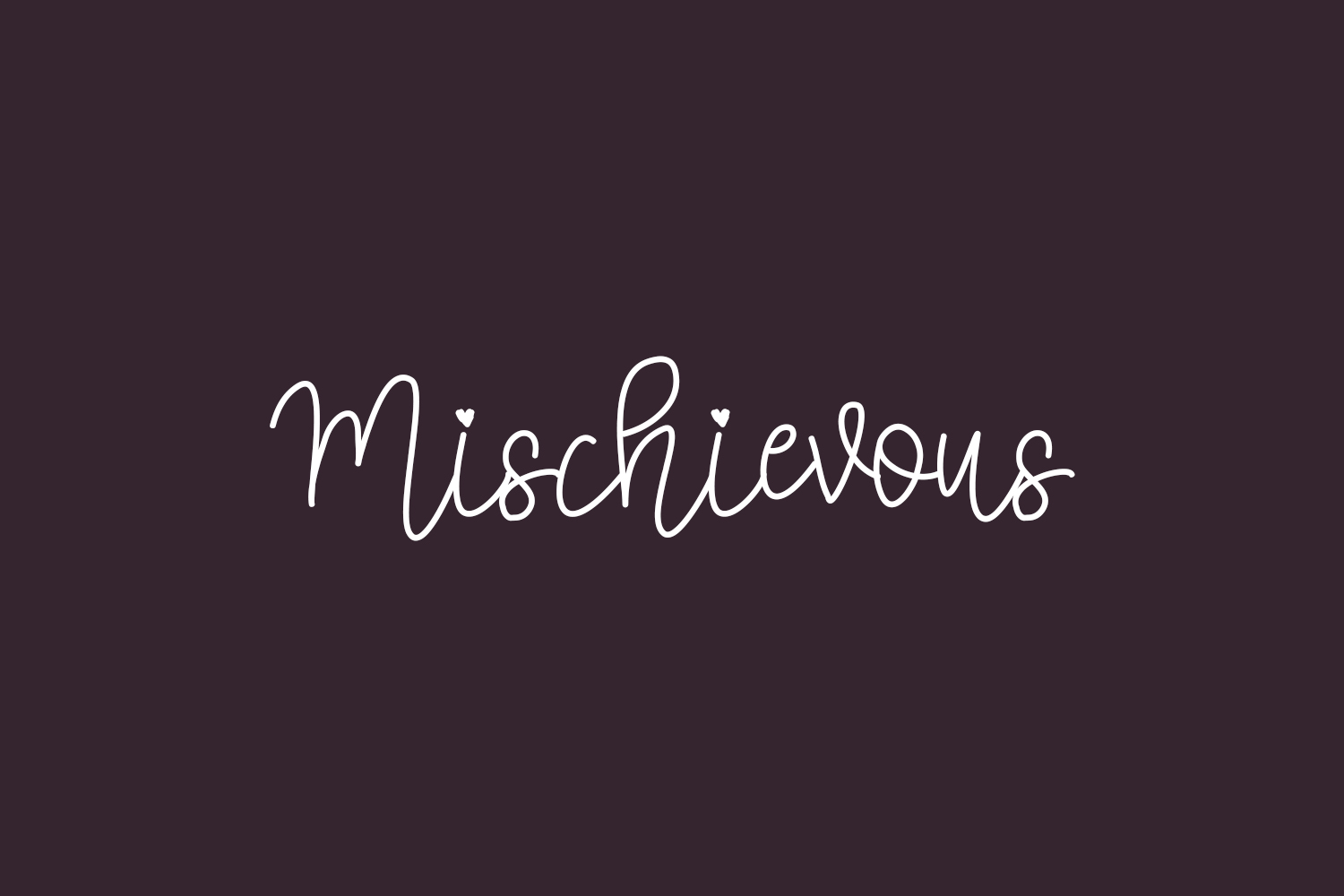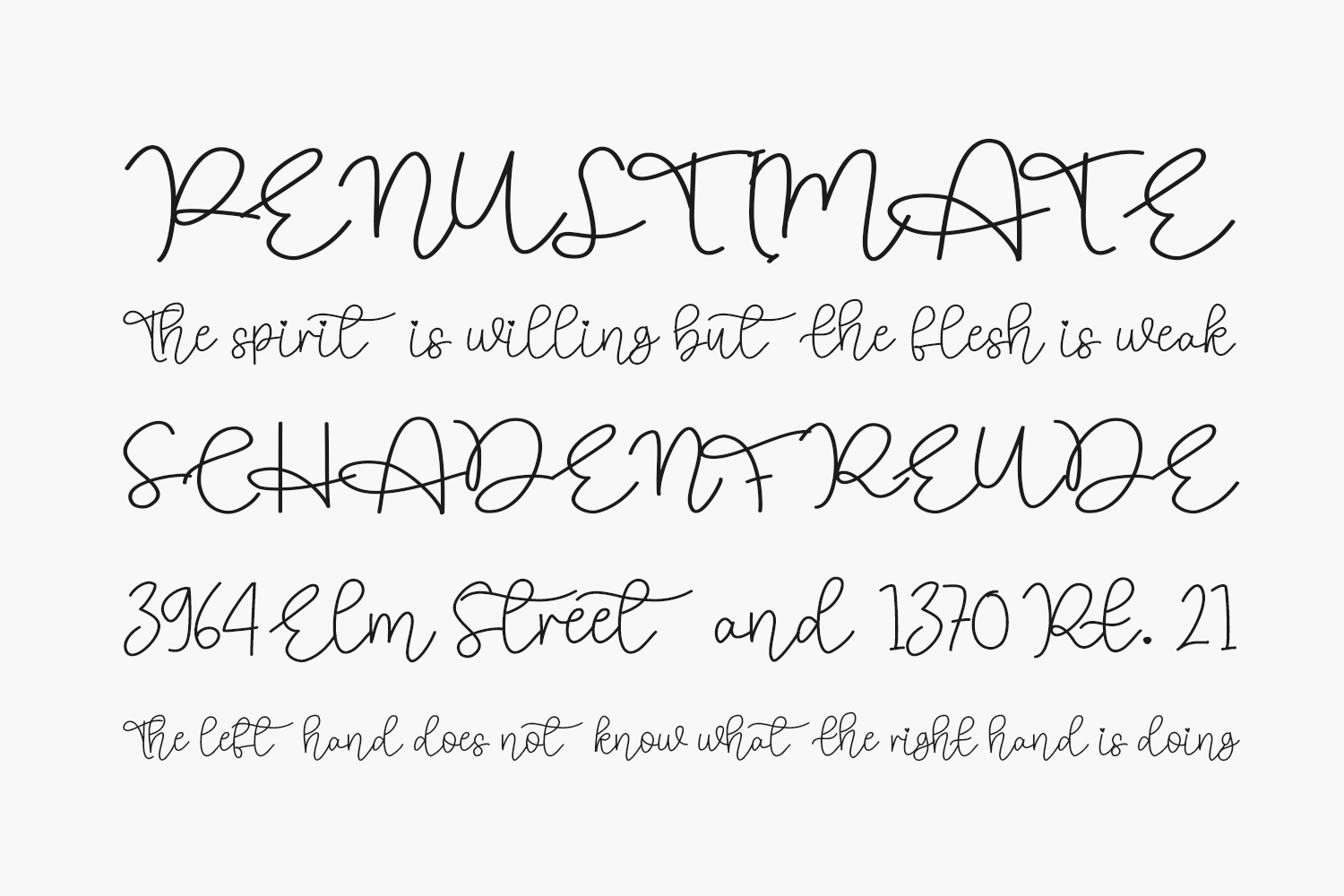
Mischievous Font is a unique and elegant handwritten font. It looks beautiful on a variety of designs requiring a personalized style, such as wedding invitations, thank you cards, weddings, greeting cards, logos and so on. Mischievous Font was designed by Teguh Valentino and is free for personal use only. Please purchase the full version for commercial use.